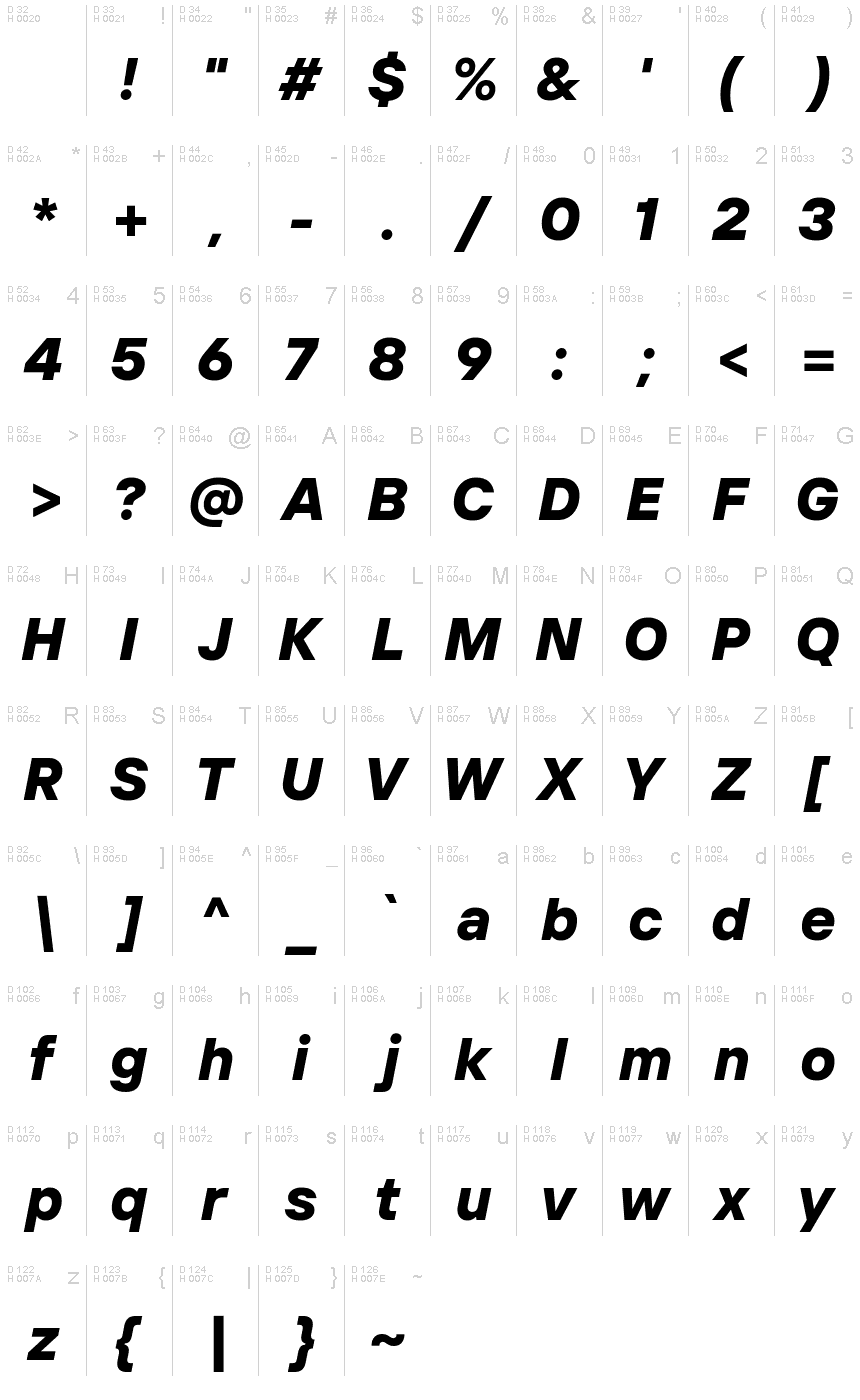
TT Interphases Pro Trl XBd It
TT Interphases Pro XBd It is a striking and versatile sans serif font designed by TypeType Foundry.
With its extra-bold weight, this font commands attention and adds a touch of modern sophistication to any project. Its clean lines and smooth curves make it perfect for various creative endeavors, including logo design, branding materials, advertising campaigns, and editorial layouts. Whether you're looking to create a powerful headline or a sleek body text, TT Interphases Pro XBd It is the ideal choice for making a bold statement that leaves a lasting impression.